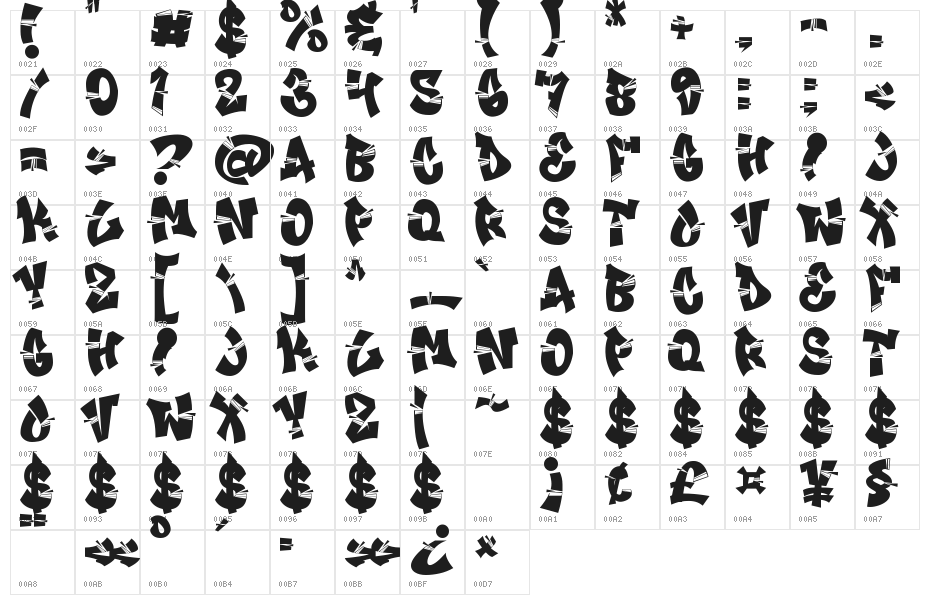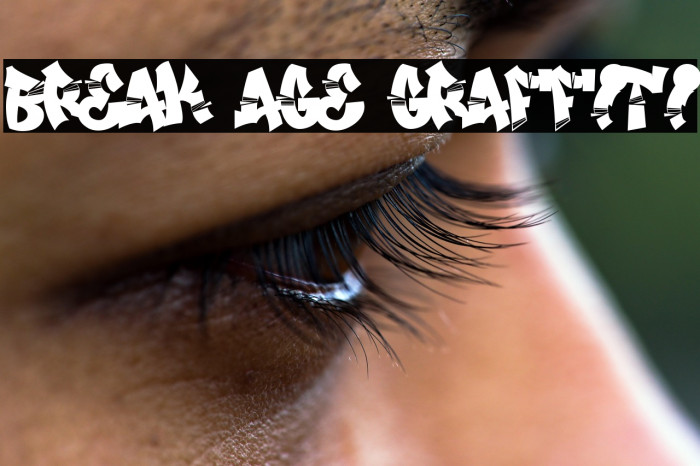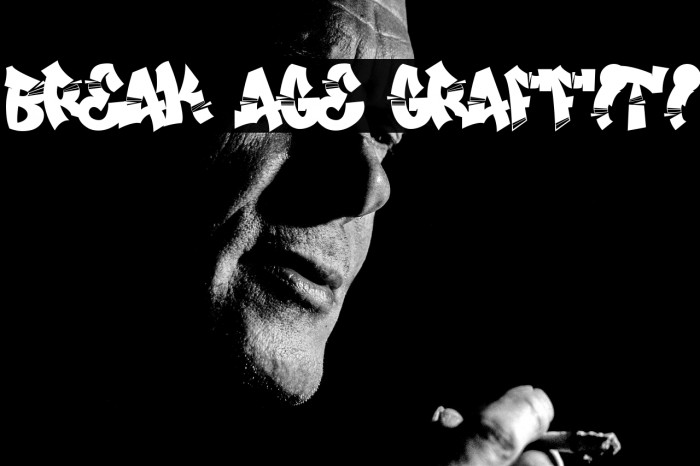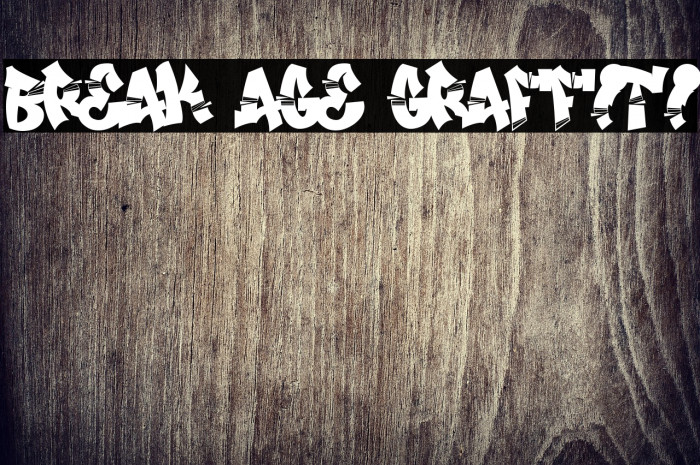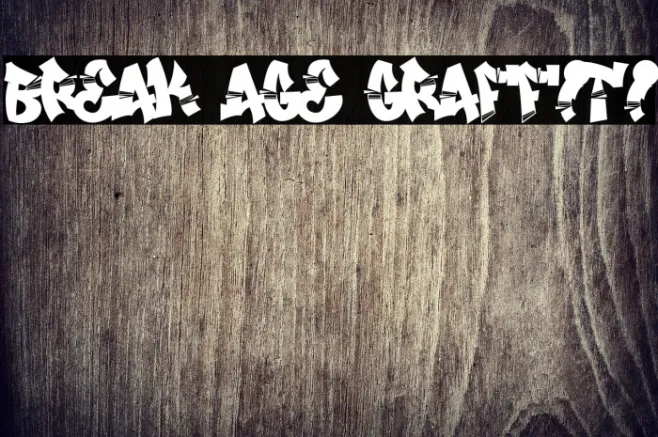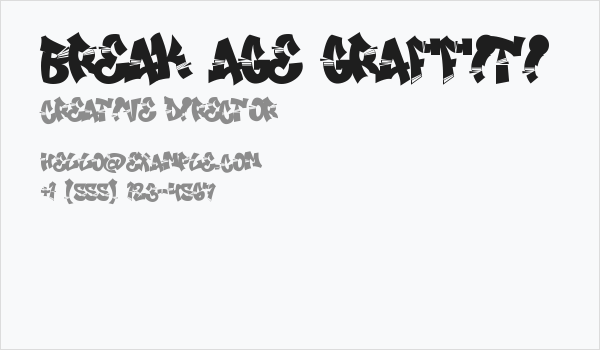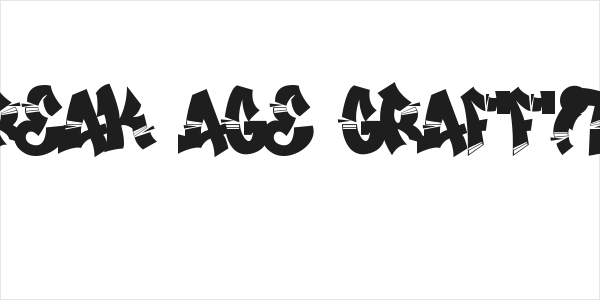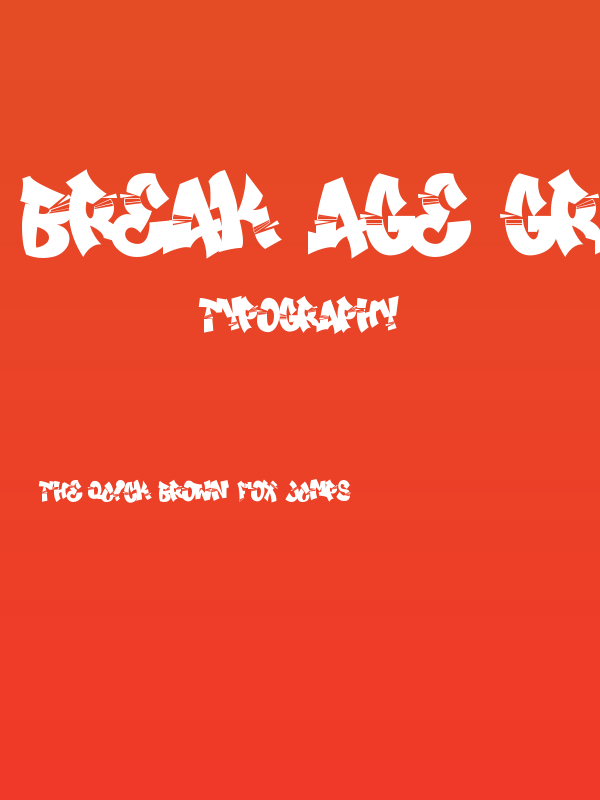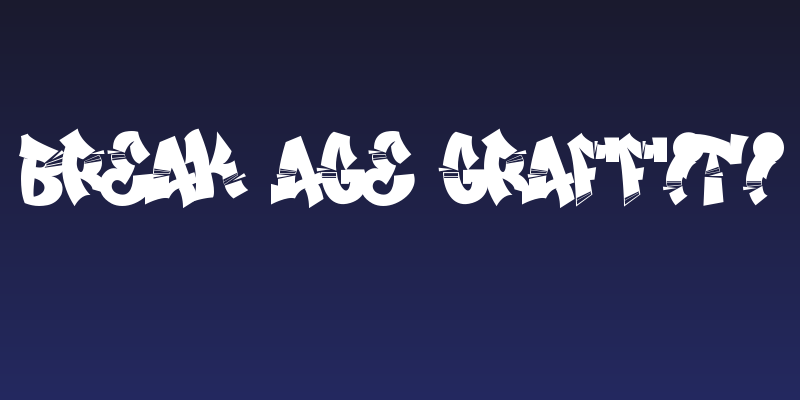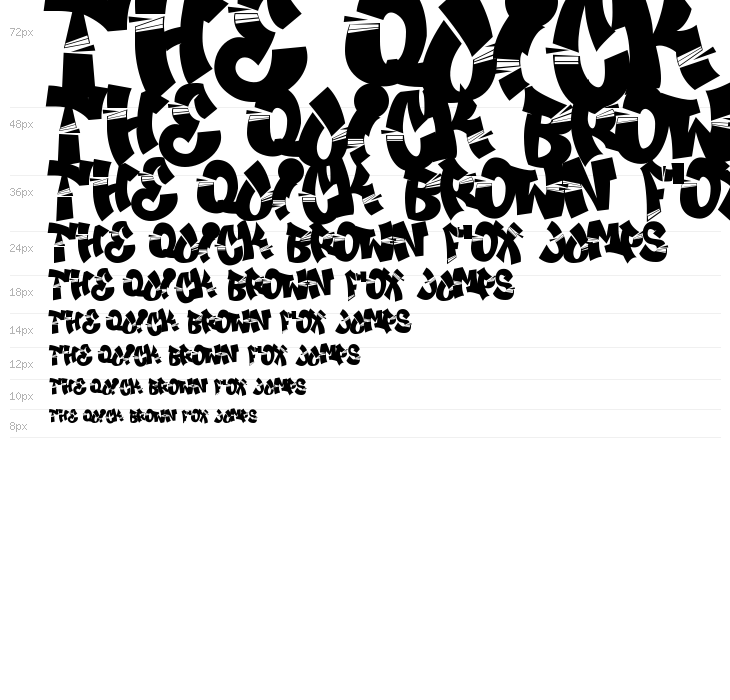
Break Age Graffiti Font
This font features a bold, dynamic graffiti style with exaggerated, angular shapes and sharp edges. The letters are heavily stylized, giving a sense of movement and energy, reminiscent of urban street art. The characters are interconnected with a unique, fragmented design that adds a sense of depth and complexity. The font's boldness is accentuated by its thick strokes and high contrast, making it stand out prominently. It captures the essence of rebellious and artistic expression, suitable for projects that aim to convey a youthful, edgy, and vibrant aesthetic.
A bold, dynamic graffiti-style font with angular shapes and high contrast.
- Font: Break Age Graffiti
- Proposed Projects: Ideal for street art murals, urban-themed posters, music album covers, and edgy branding projects.
- Character Spacing: Tight
- Overall Style: Modern, Urban, Edgy